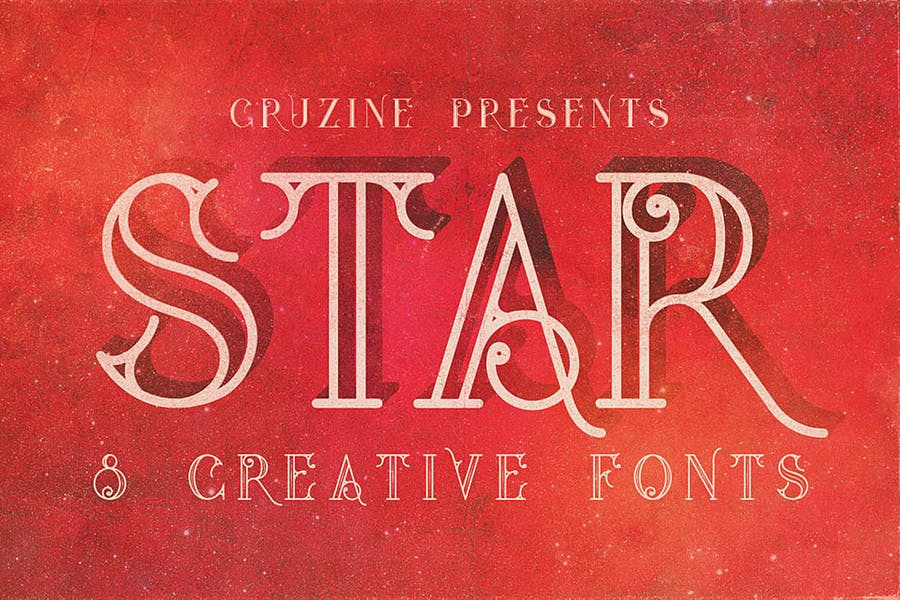
Star Typeface Font
Star Typeface Font is perfect for entertainment industry branding, award ceremony graphics, celebrity magazine layouts, talent agency logos, movie premiere posters, music album covers, theater marquee signage, talent show materials, entertainment awards design, celebrity endorsement campaigns, stardom-themed advertising, and glamorous event promotions.
Star Typeface Font is exciting because it embodies the magnetic charisma and universal appeal of true stardom with brilliant letterforms that seem to radiate confidence and success, making it the perfect choice for projects that need to communicate excellence, recognition, and the inspiring journey from dreams to stardom.
The Star Typeface Font family includes stellar variations: Regular, Bold, Light, Shine, Outline, and Glow effects, providing designers with a complete celebrity typography system to create captivating compositions that celebrate achievement, talent, and the transformative power of reaching for the stars.
Reach for stardom with Star Typeface Font Free Download. This luminous typeface brings the excitement and glamour of celebrity culture to contemporary design projects. Whether you're creating entertainment industry identities, designing talent-focused marketing materials, or developing star-studded promotional campaigns, Star Typeface Font delivers unmatched charisma and aspirational appeal that inspires audiences to pursue their dreams.
The font's brilliantly designed letterforms capture the essence of star quality with balanced proportions and radiant character details that suggest both approachable charm and extraordinary talent. Each character demonstrates the perfect combination of accessibility and excellence that defines beloved celebrities and successful entertainers.
Star Typeface Font excels in creating memorable brand experiences for businesses in entertainment, talent development, and aspirational lifestyle sectors. Its inspiring presence transforms ordinary communications into motivational messages that resonate with audiences seeking recognition, success, and the fulfillment of their highest aspirations.
Professional designers value how Star Typeface Font maintains its celebrity appeal while providing exceptional functionality across diverse entertainment applications. The comprehensive style range ensures optimal performance from intimate talent portfolios to massive entertainment venue signage, maintaining consistent star power and inspirational quality.
This remarkable typeface brings instant credibility to entertainment ventures and aspiration-focused businesses. From talent agencies to performance venues, Star Typeface Font creates lasting impressions that communicate excellence, opportunity, and the boundless potential that exists within every individual pursuing their dreams.